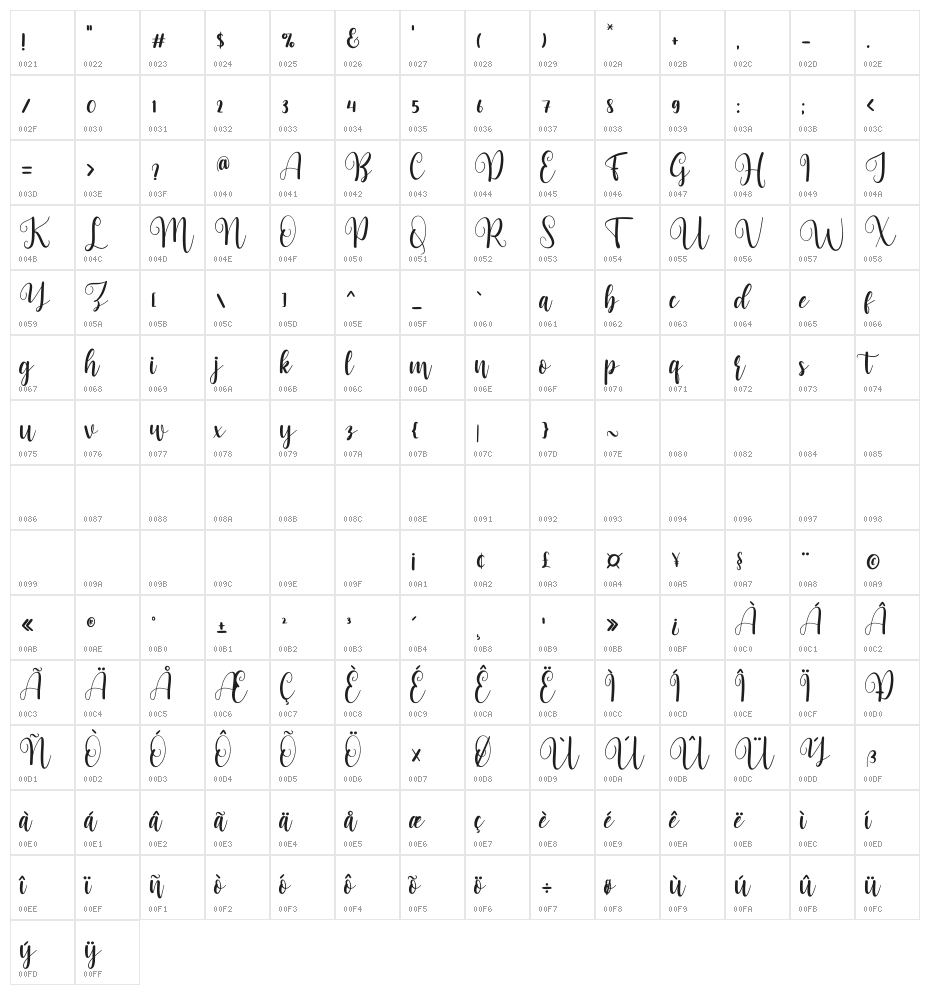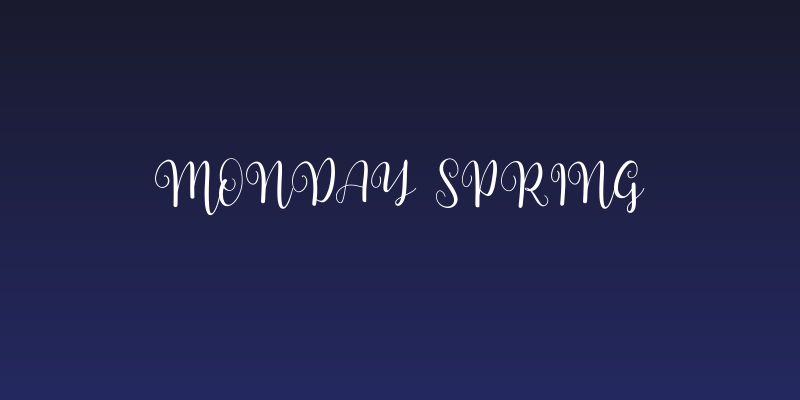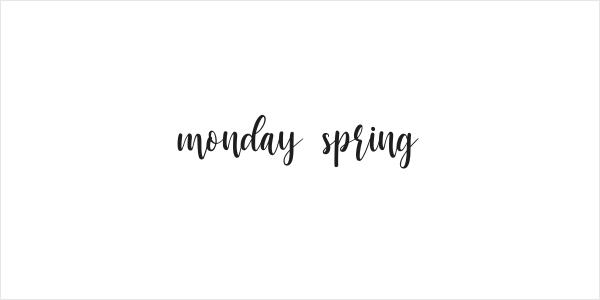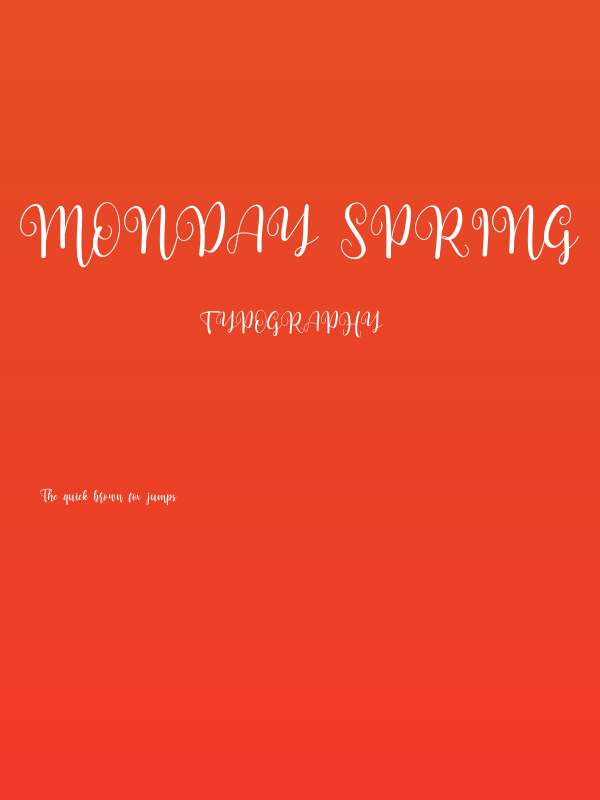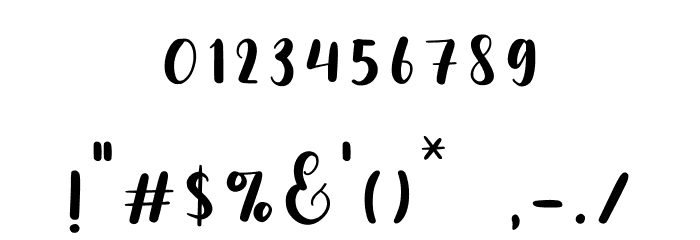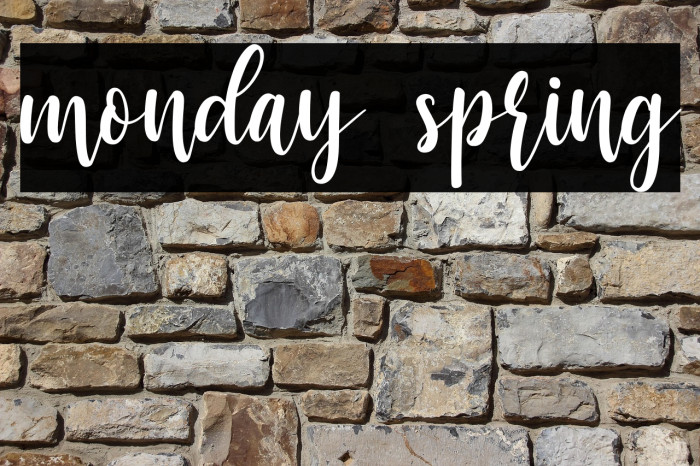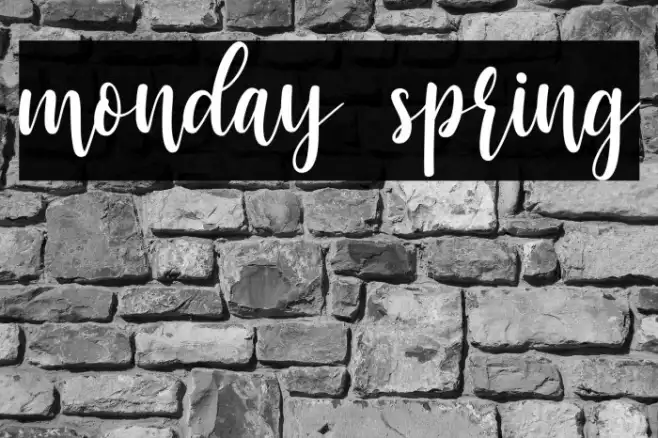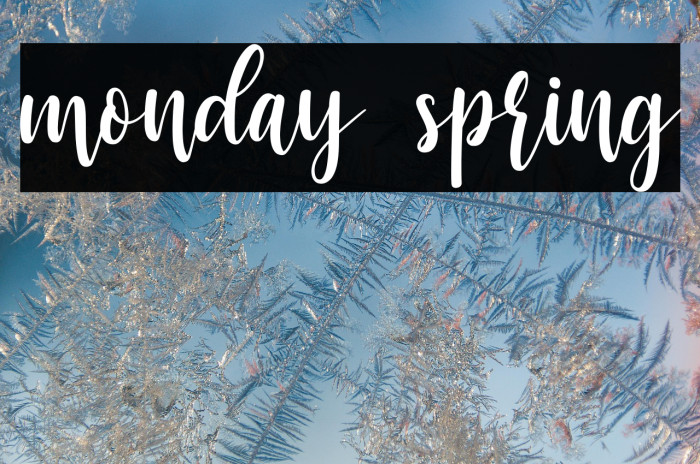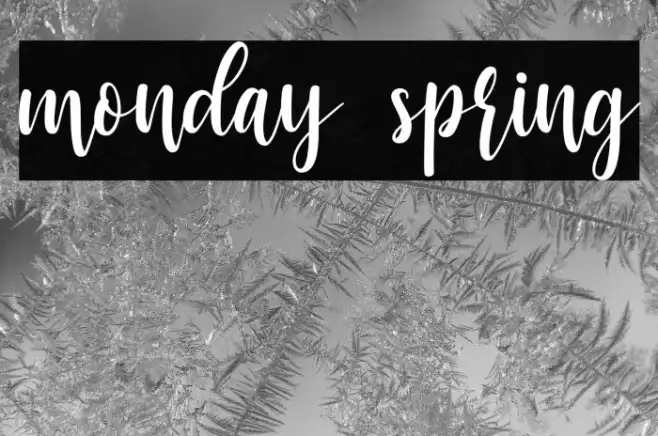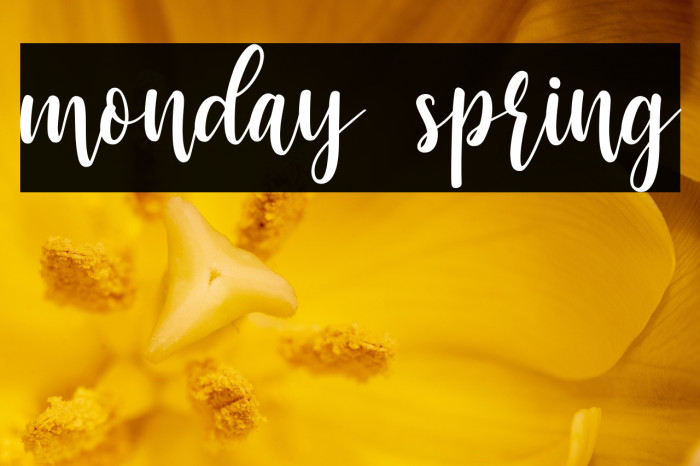
monday spring Font
monday spring Description
This font features a playful and elegant script style with a handwritten appearance. The uppercase letters are characterized by their flowing, cursive forms, while the lowercase letters maintain a consistent, smooth stroke that enhances readability. The numerals are bold and slightly rounded, complementing the overall aesthetic. Special characters are creatively designed, adding a whimsical touch. The font's fluidity and charm make it suitable for a variety of creative projects, from invitations to branding materials. Its unique style captures attention while maintaining a sense of sophistication.